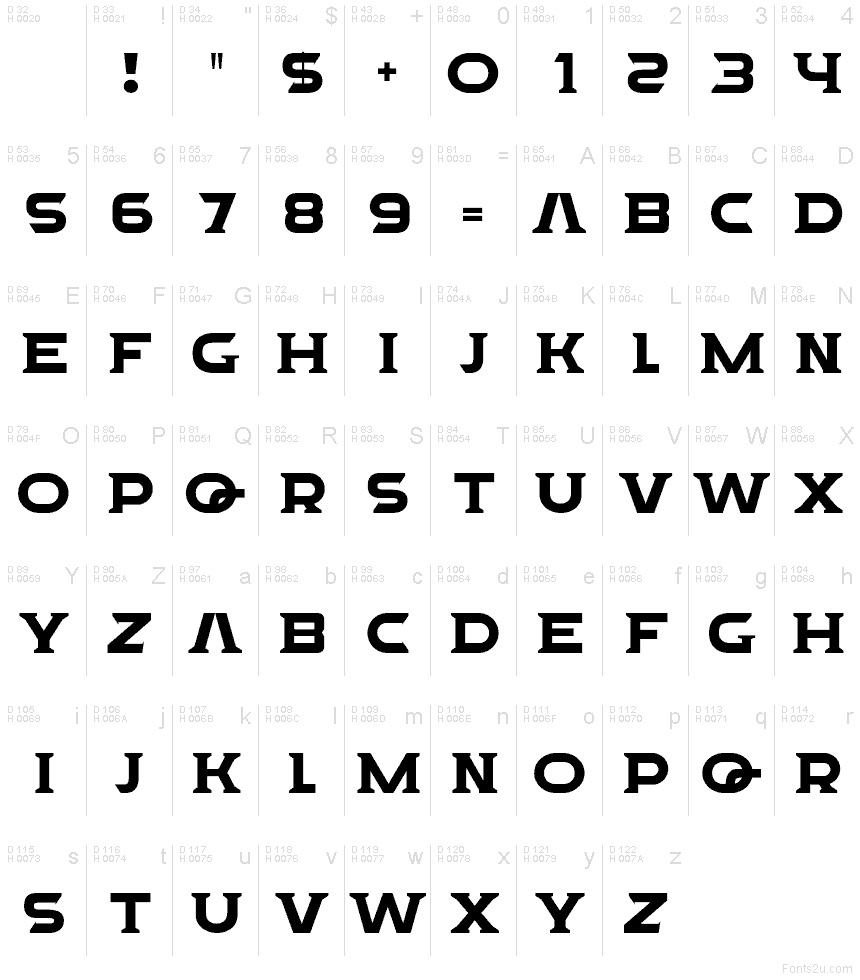
Aeogo Pxltd Slab Serif
Aeogo Pxltd Slab Serif font by Ffeeaarr is a futuristic bold display typeface featuring an expanded width. The geometric and minimalist quality of this free font makes it immediately appealing for modern technology-related projects in need of something structured yet crisp and clean.
As a result, audiences can benefit from this font used in logos, interfaces, digital applications, web designs, merchandise branding, labels or packaging designs backgrounds when combined with other elements retaining the same aesthetic style. Its use could equally be extended to posters as well as magazines covers within contemporary contexts.